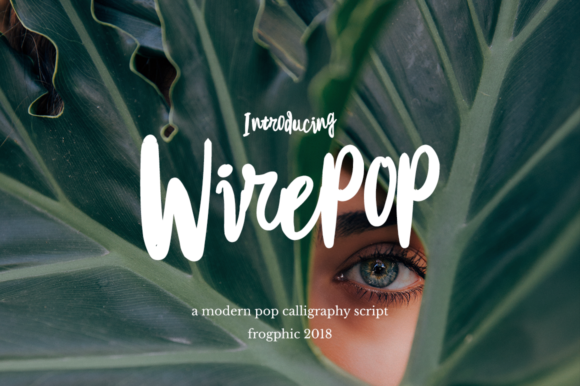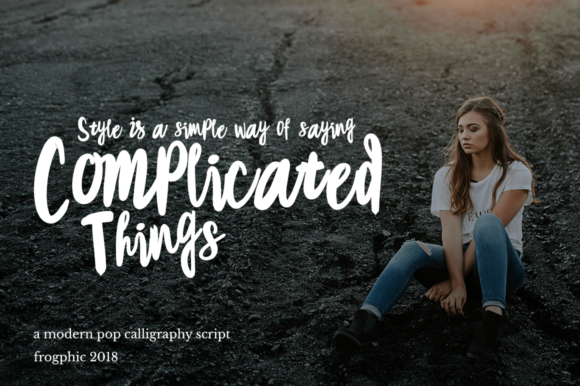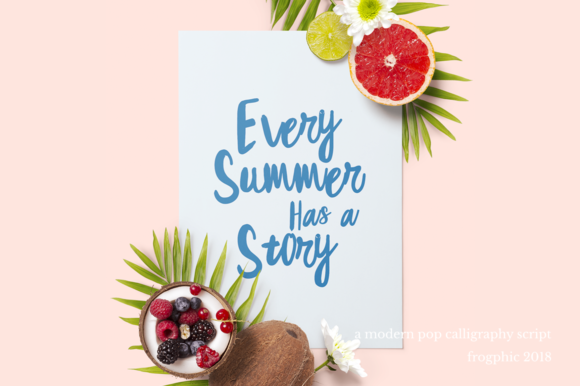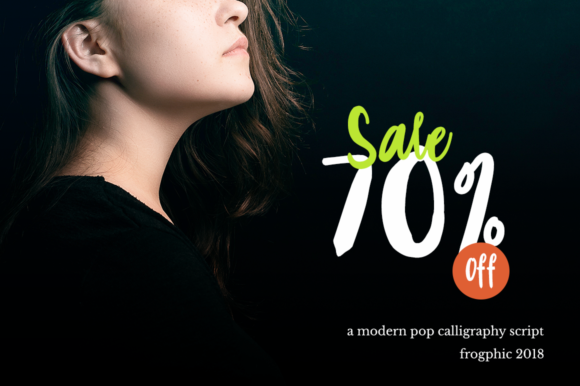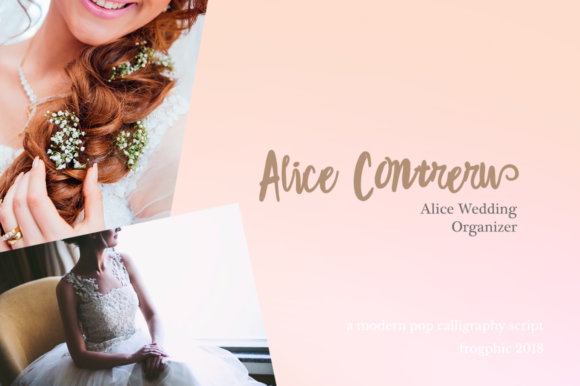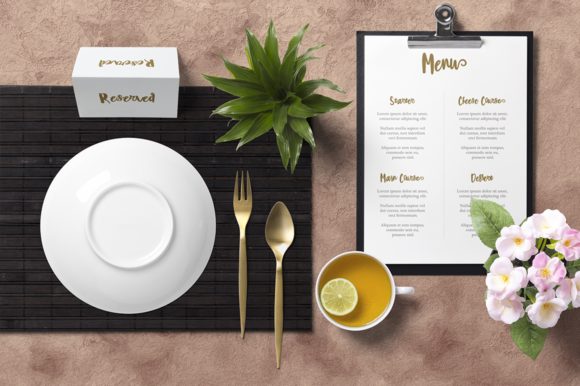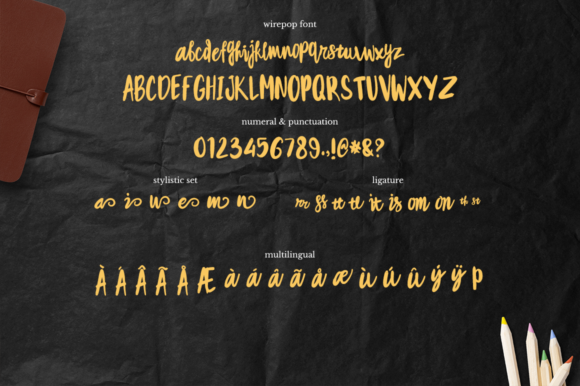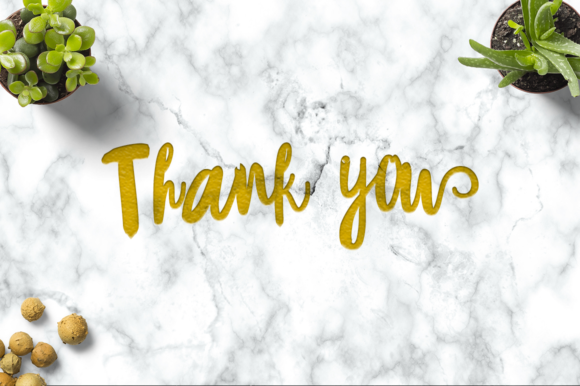
Wirepop Font
About Wirepop Font
Wirepop is a modern pop calligraphy script with a handwritten style. Wirepop looks bold, stylish, elegant, natural and funky. Wirepop can be used perfectly for different projects such as: logos & branding, invitations, wedding designs, social posts, advertisements, product packing, labels and much more.